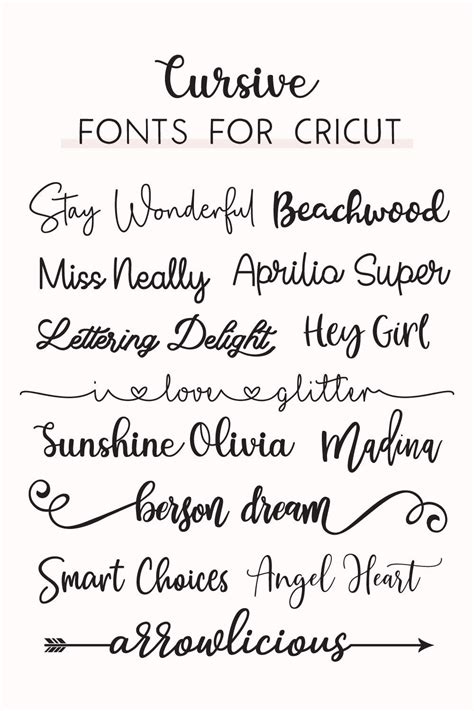
Discover the Secrets of Cursive Fonts on Cricut Access!
Among the 700+ available fonts on Cricut Access, you can find a large selection of cursive fonts. Cursive fonts are great for creating elegant and stylish projects. From monograms to invitations, cursive fonts are perfect for adding a special touch to any project. With the wide selection of cursive fonts available on Cricut Access, you can find the perfect font for any project.Tools Needed for Cursive Fonts
When using cursive fonts on Cricut Access, there are a few tips to keep in mind. First, make sure to pick a font that is legible. If the font is too small or intricate, it could be difficult to read. Also, make sure to use the correct size for your project. Too small of a font size may be difficult to read, and too large of a font size may look overwhelming.Weeding Out Cursive Fonts
Weeding out cursive fonts is an important part of the design process. Weeding is the process of removing excess material from the design. With cursive fonts, this process can be a bit tricky. The key is to pay attention to the details. Make sure to remove any extra pieces of material that are not part of the design. This will ensure that your design looks clean and professional.Layering Cursive Fonts
Another great way to add a unique touch to your design is to layer cursive fonts. By layering multiple fonts, you can create a unique and eye-catching look. To layer fonts, simply open the Cricut Design Space and select the fonts you want to layer. You can then customize the size, color, and other settings for each font to create a unique look.Using Color with Cursive Fonts
Using color with cursive fonts can add an extra layer of dimension to your design. You can use different colors to make the design stand out or create a color palette to match your project. With the Cricut Design Space, you can easily change the color of any font.Example of Using Cursive Fonts
For example, if you are creating a monogram for a wedding invitation, you can use a cursive font to add an elegant touch. By layering two fonts, one in black and one in a metallic gold, you can create a stunning design. You can also add color to the design to make it even more unique.Point of View
Cursive fonts are a great way to add a unique touch to any project. With the wide selection of fonts available on Cricut Access, you can easily find the perfect font for any project. By using the tips outlined in this article, you can create amazing projects with cursive fonts.Cursive fonts are a great way to add an elegant touch to any project. Whether you are creating a monogram, invitation, or other project, cursive fonts can be used to create a unique look. With the selection of fonts available on Cricut Access, you can easily find the perfect font for any project. So, get creative and start exploring the world of cursive fonts on Cricut Access today!Source: CHANNET YOUTUBE Makers Gonna Learn